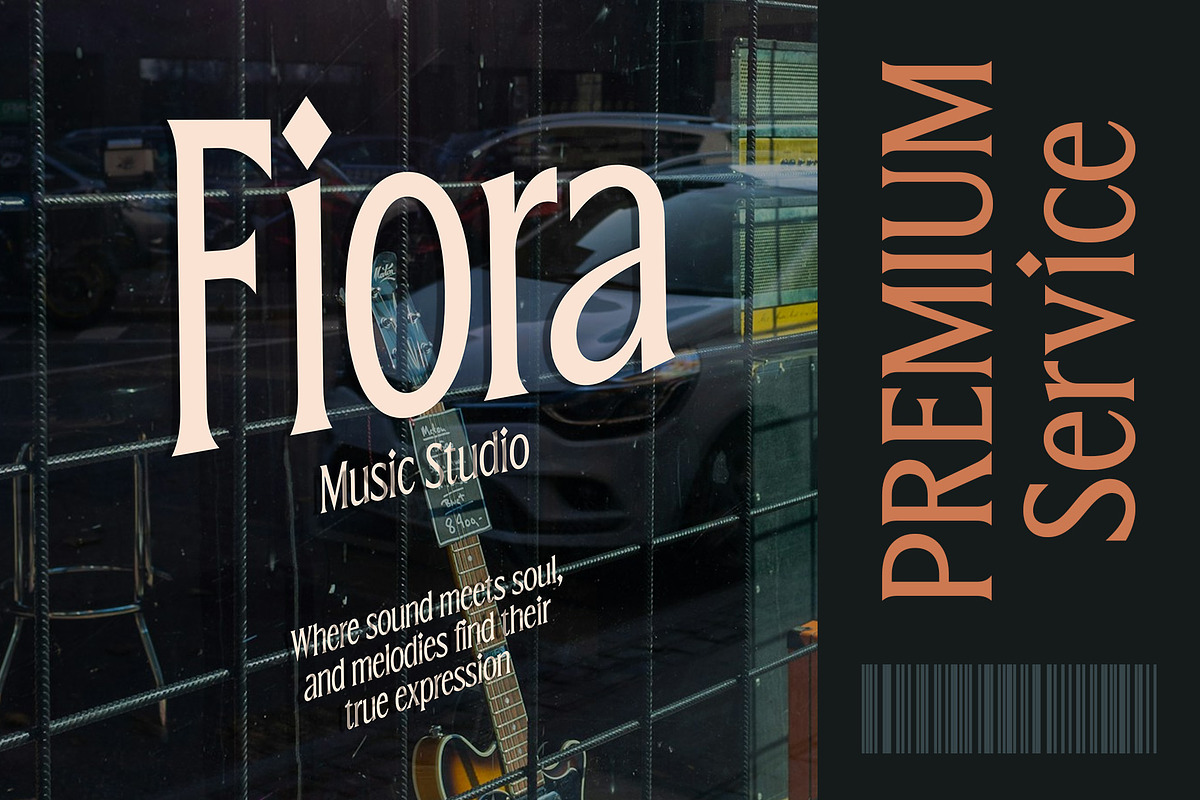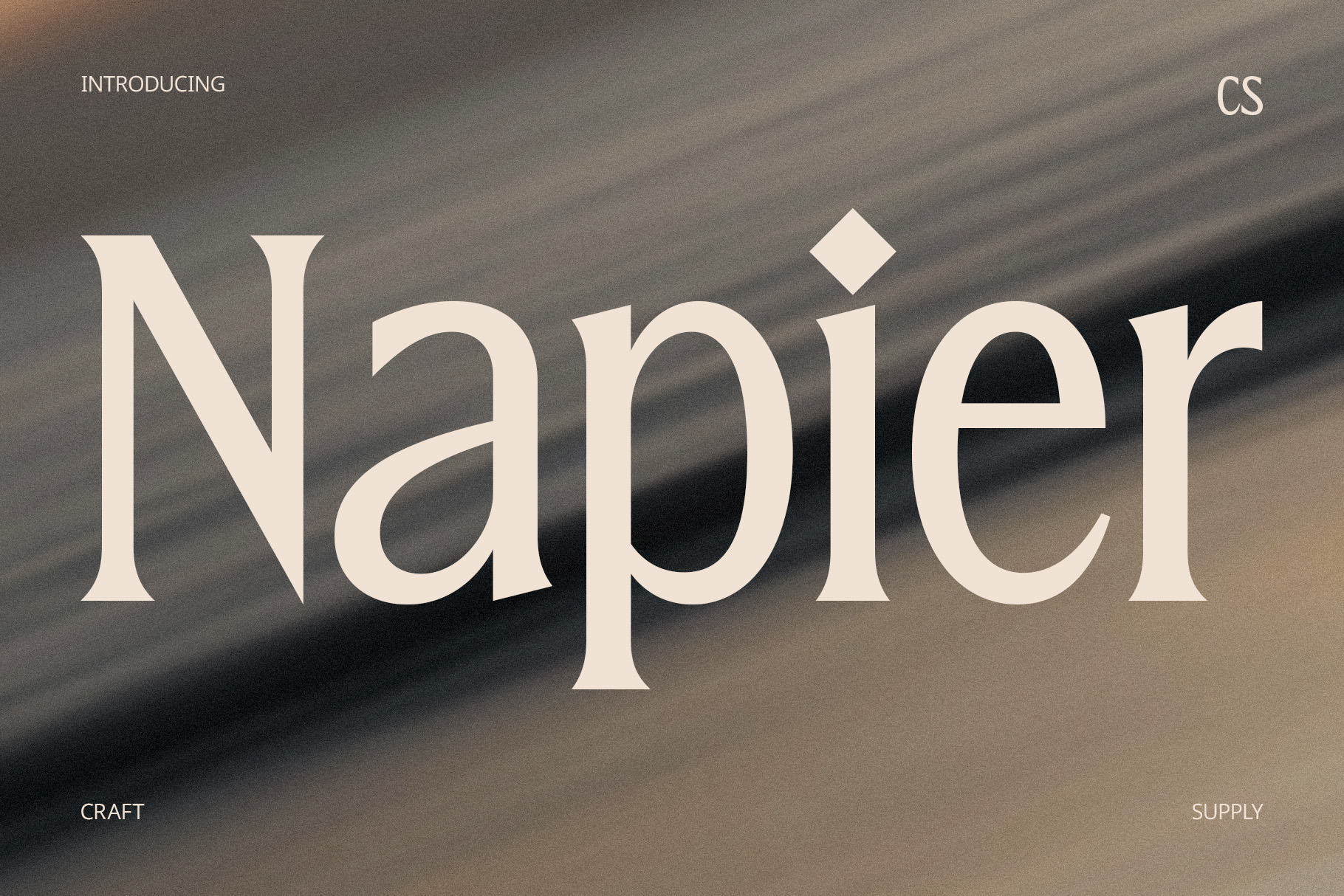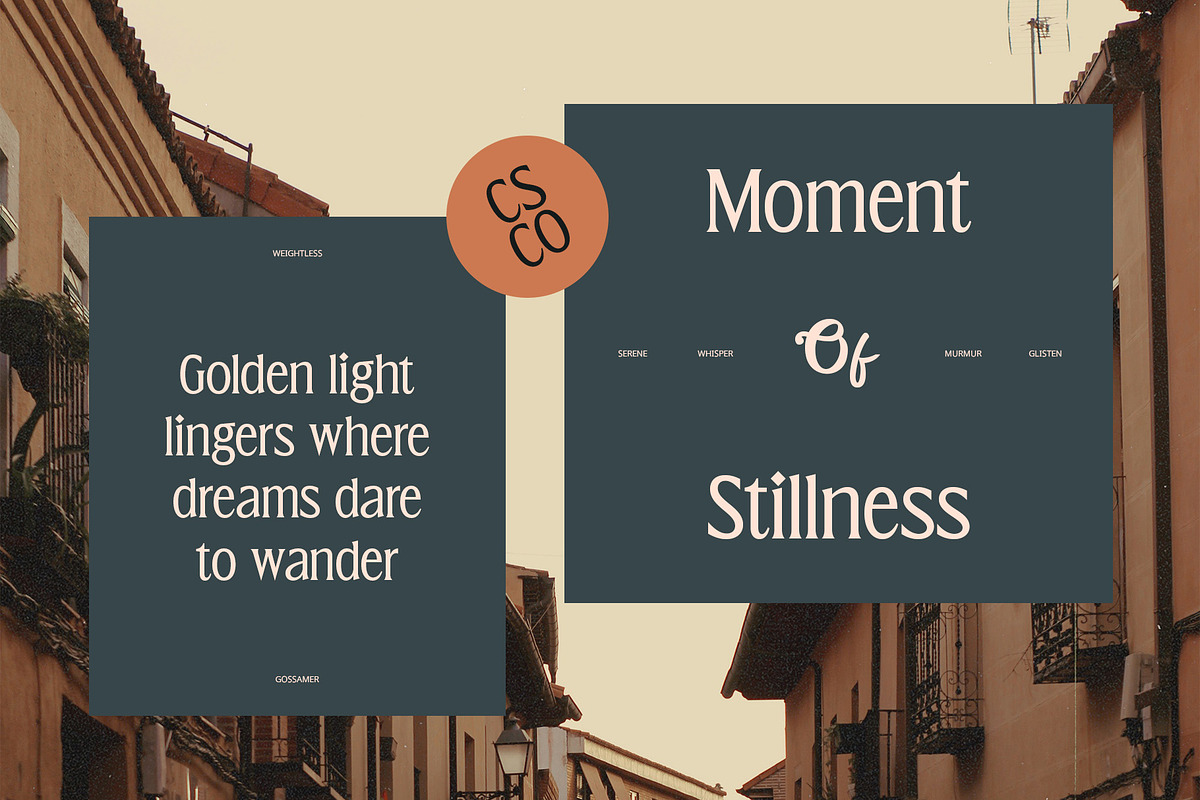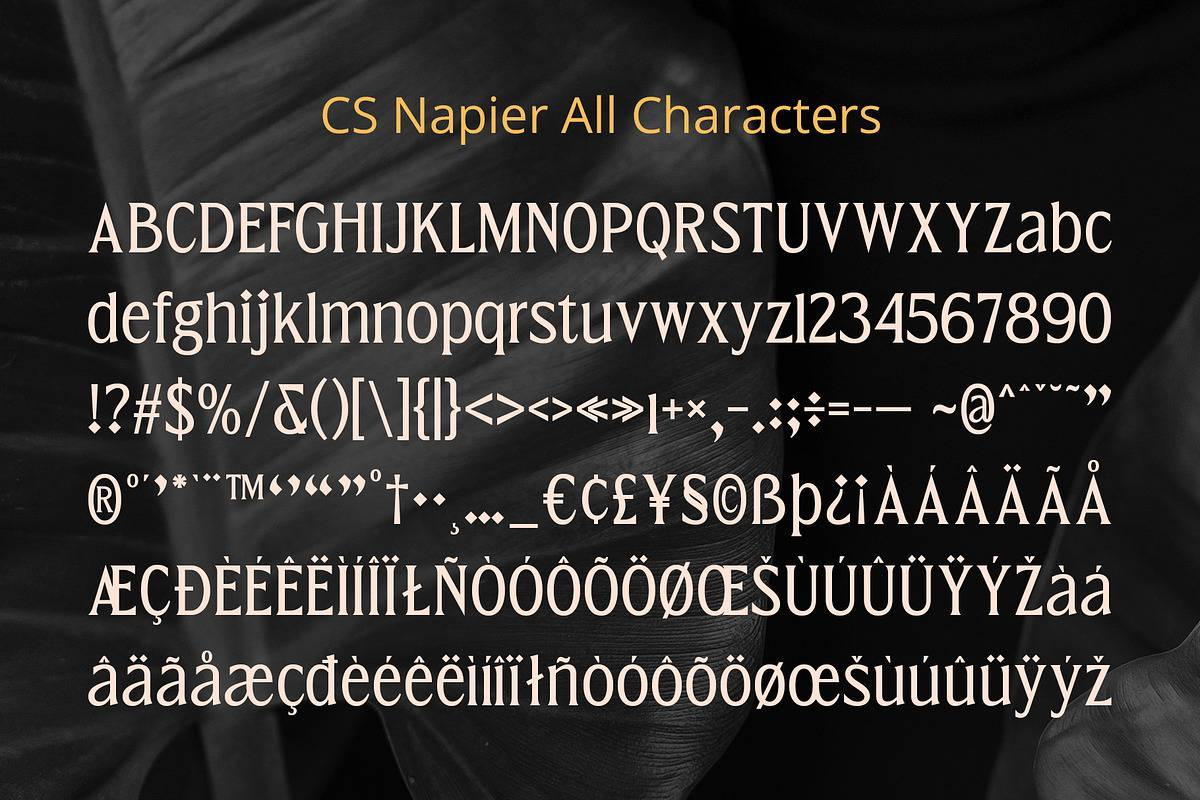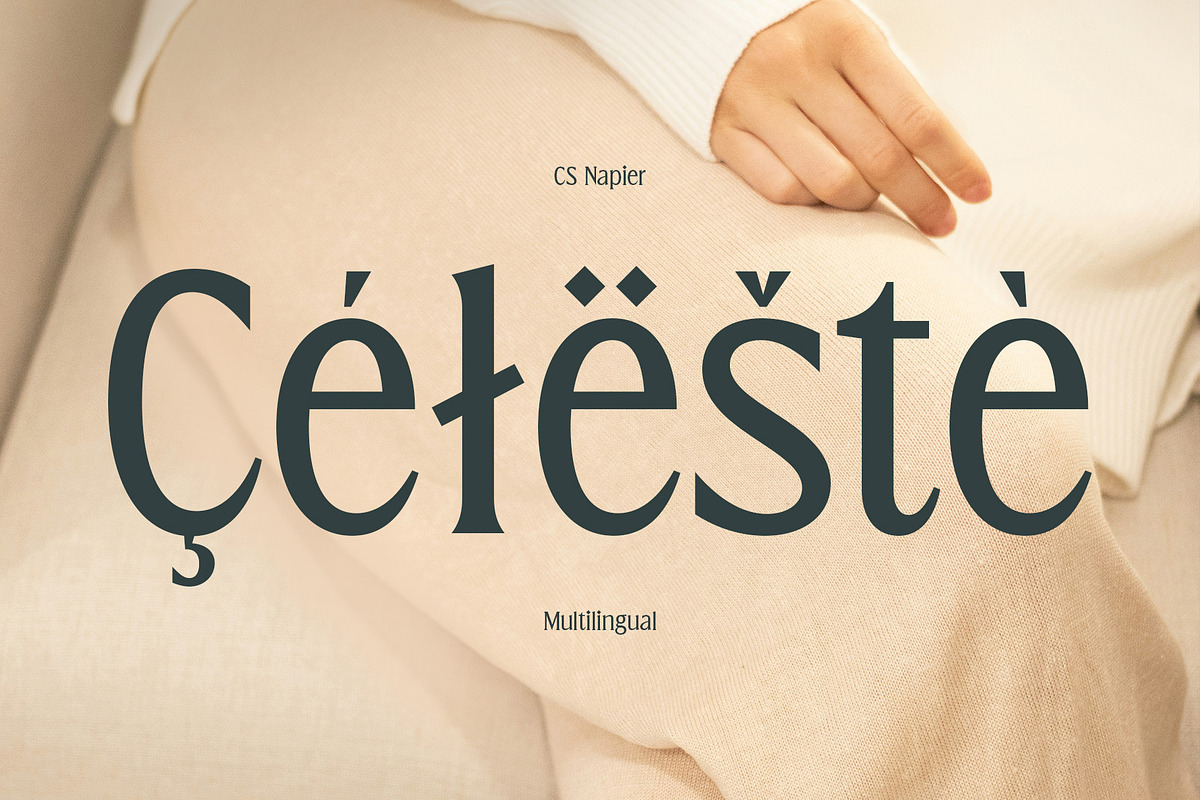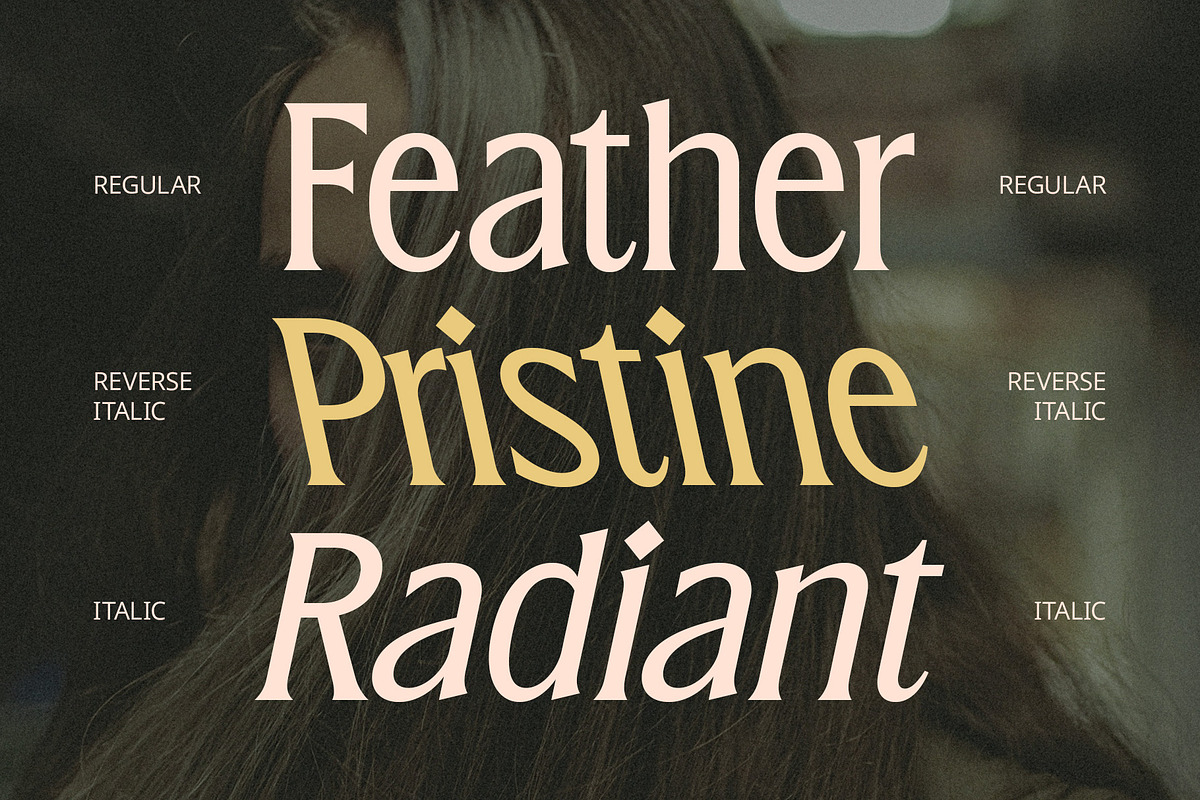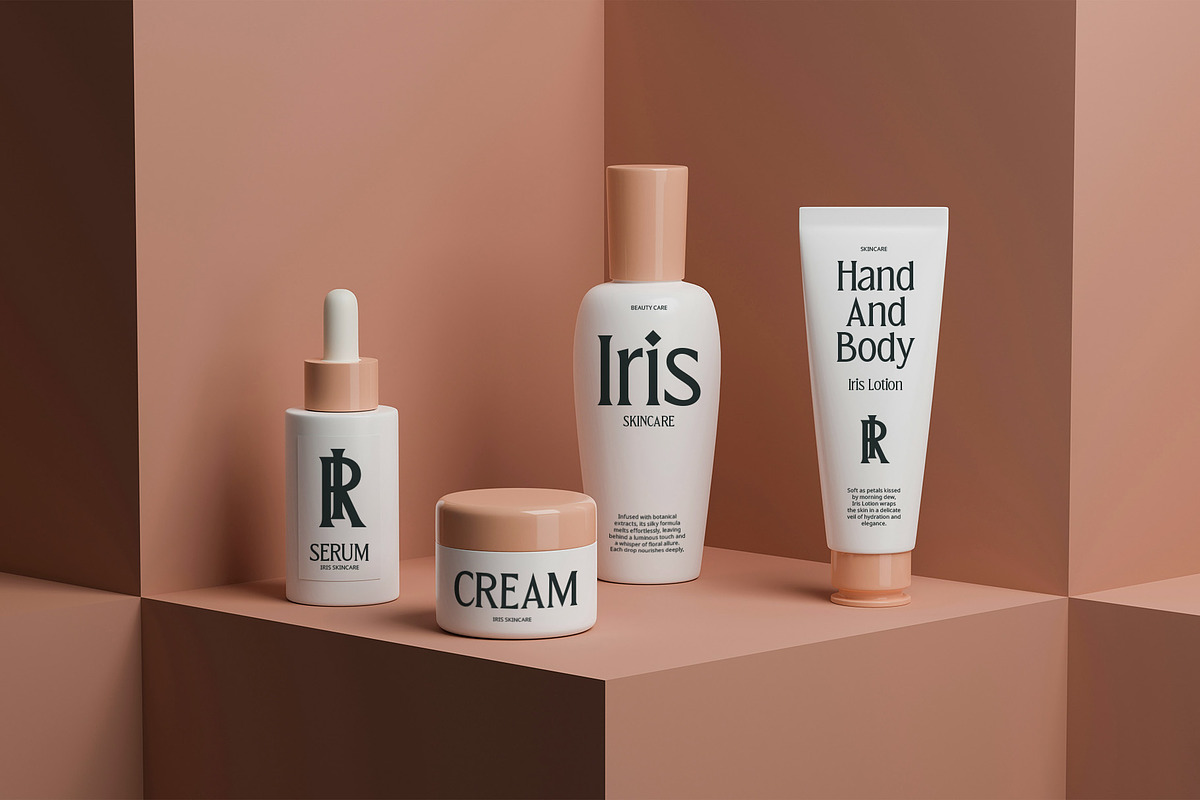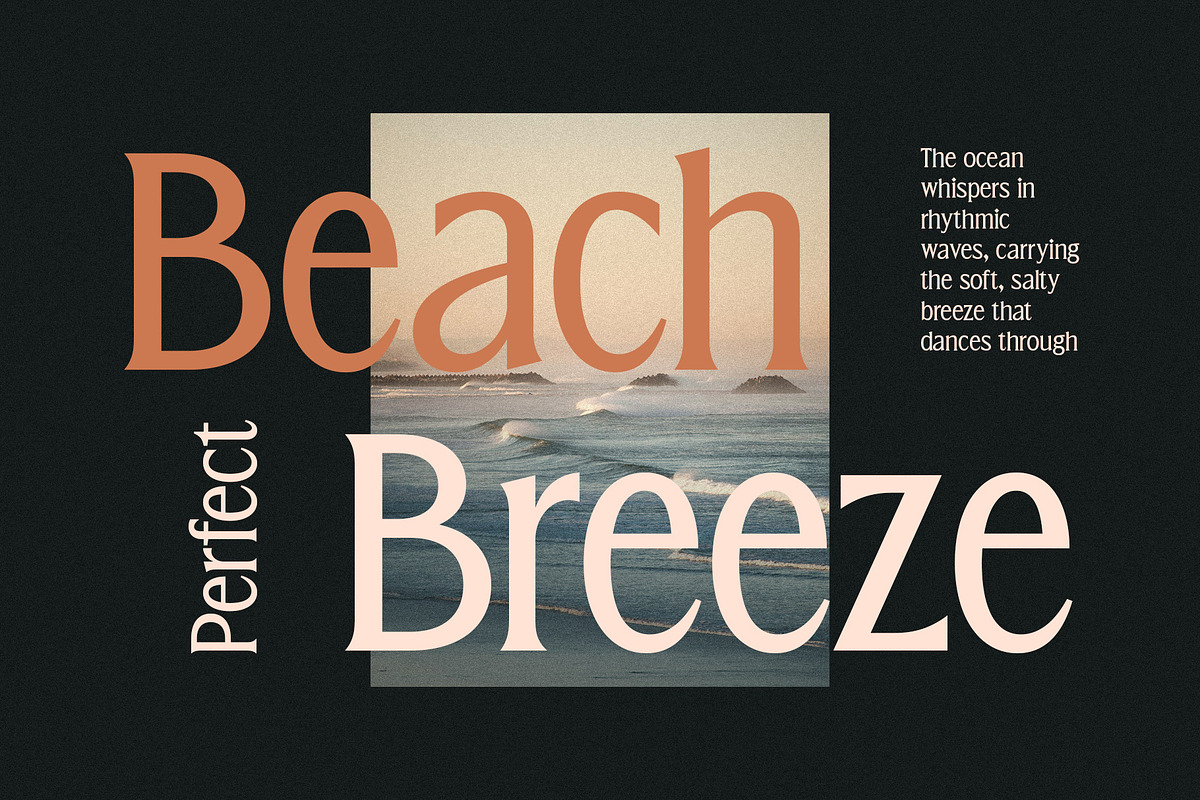
CS Napier – Modern Font
CS Napier Font – A Timeless Modern Serif with Classic Elegance
A Perfect Fusion of Tradition and Contemporary Design CS Napier is a classic modern serif font that seamlessly blends traditional sophistication with modern refinement. Designed with balanced proportions, precise details, and sharp serifs, this font radiates a high-end, professional, and luxurious aesthetic.
Refined Details for an Elegant and Luxurious Appeal Featuring graceful curves, crisp serifs, and meticulous letterforms, CS Napier is crafted to embody class and prestige. Its subtle contrast and smooth flow add a touch of elegance, making it ideal for luxury brands, fashion magazines, and exclusive product packaging. The attention to detail ensures that each character maintains a sophisticated and polished presence.
Versatile for a Wide Range of Design Applications CS Napier’s well-proportioned structure and modern styling make it adaptable for various creative projects. Whether used for editorials, corporate branding, invitations, or web typography, its clean and distinguished look enhances readability while maintaining a strong, impactful presence.
A Font Designed for Timeless and Modern Design Trends With its blend of classic aesthetics and modern usability, CS Napier is the perfect choice for designers seeking a serif font that feels both luxurious and contemporary. It pairs effortlessly with minimalist layouts and bold, stylish compositions, allowing for a refined and sophisticated visual statement.
- CS Napier Regular
- CS Napier Italic
- CS Napier Reverse Italic